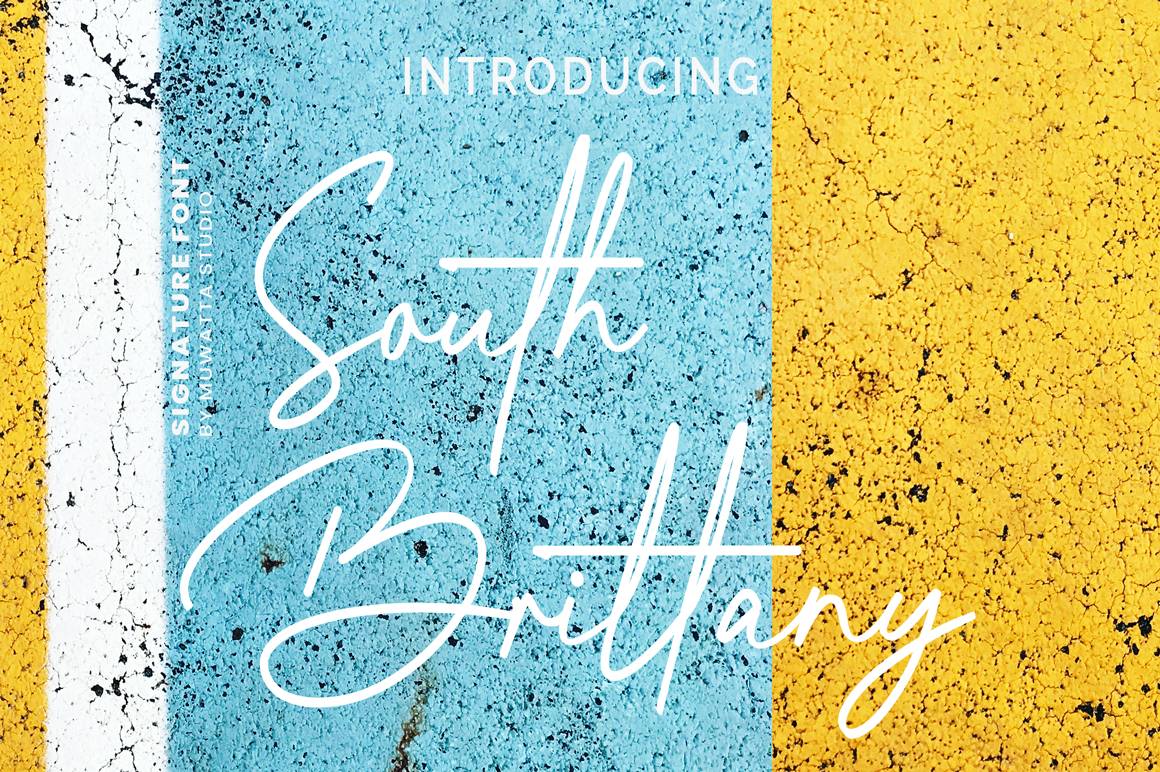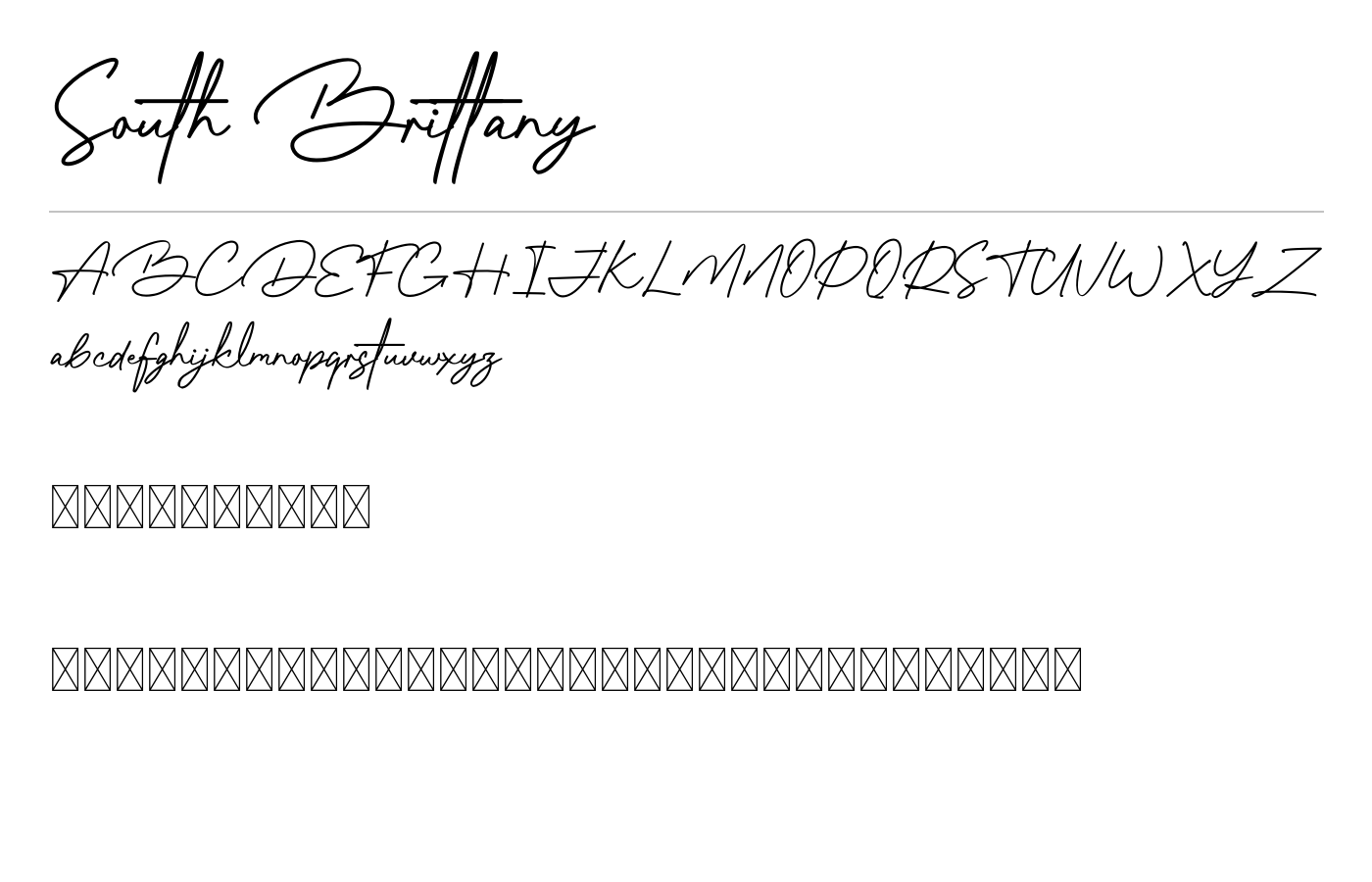
South Brittany is an elegant, thin script font with a handwritten, casual yet refined look. Its tall, narrow letterforms with smooth, flowing strokes give a personal and stylish feel, making it ideal for branding, invitations, and fashion-oriented designs where a modern, graceful touch is needed. This font works beautifully in logos and headlines that require a sophisticated, approachable charm.
South Brittany Font
About South Brittany Font
| Font family | South Brittany Font |
| Designer | Bayu Wibisono |
| Trademark | Muwatta Studio |